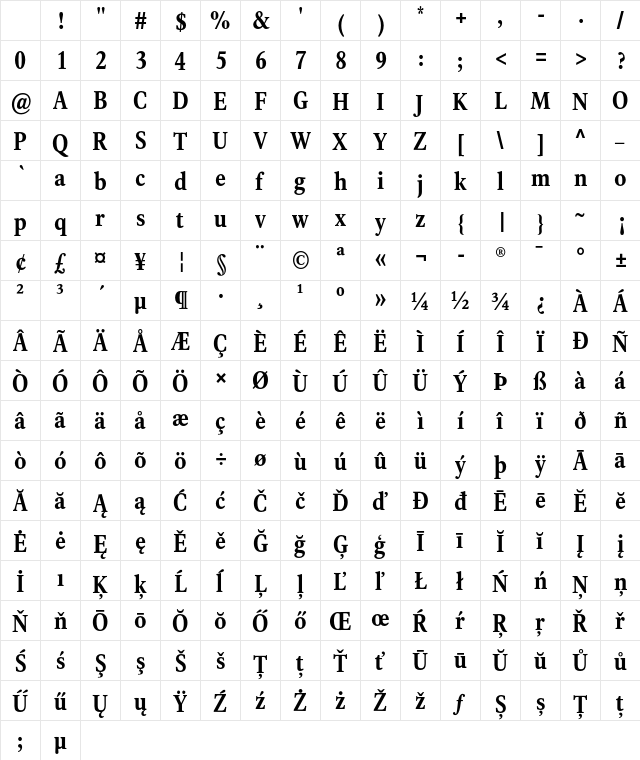
Complete Rawlinson Cond Md Heavy glyph index. Displaying only characters natively supported by Rawlinson Cond Md Heavy font.
Rawlinson Cond Md is a composed and adaptable typeface that performs quietly and consistently across a wide range of design contexts. Its narrow stance lets it pack a punch even in space-constrained designs.